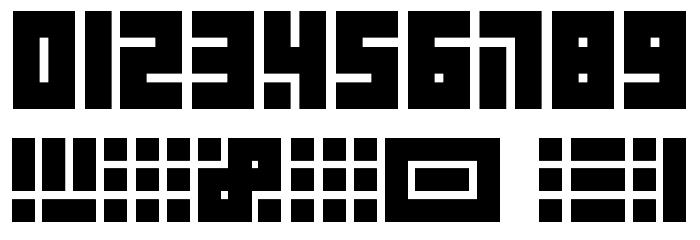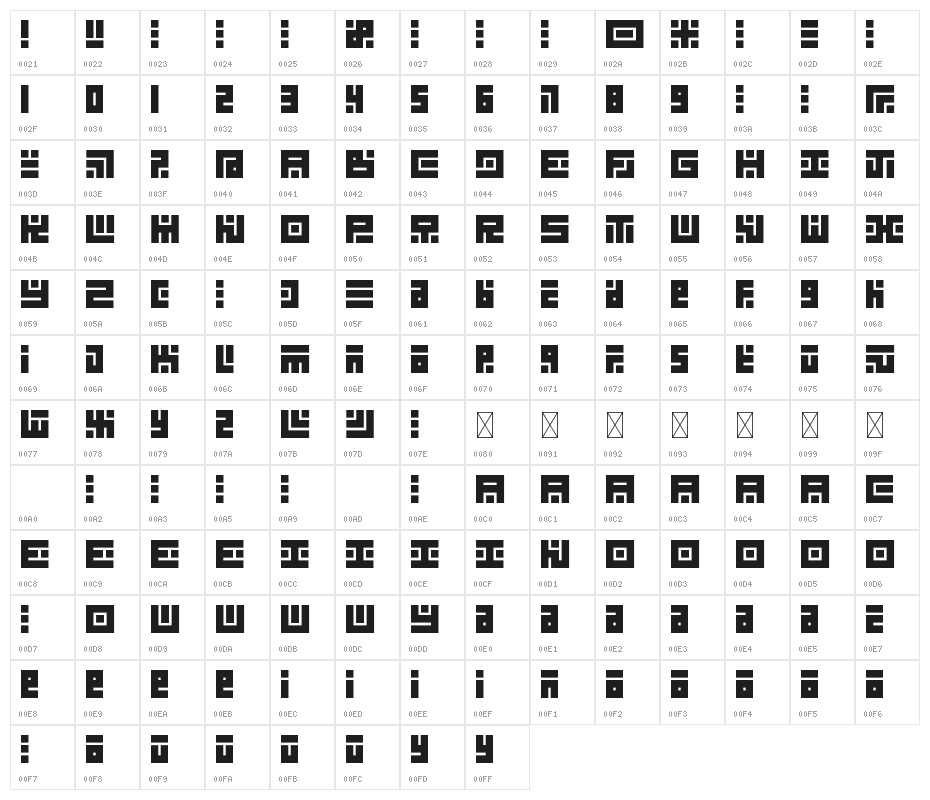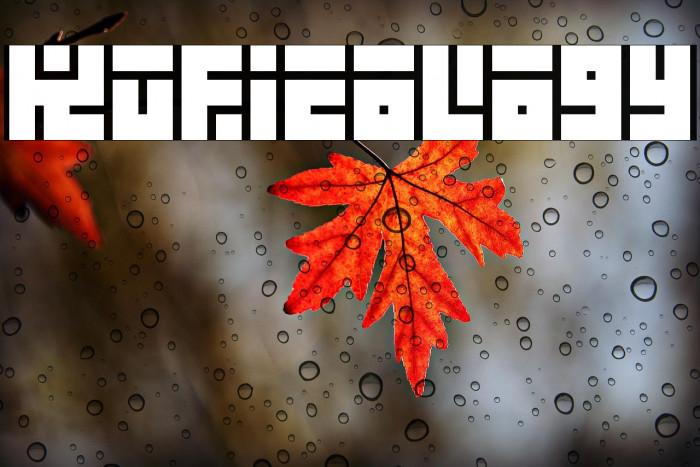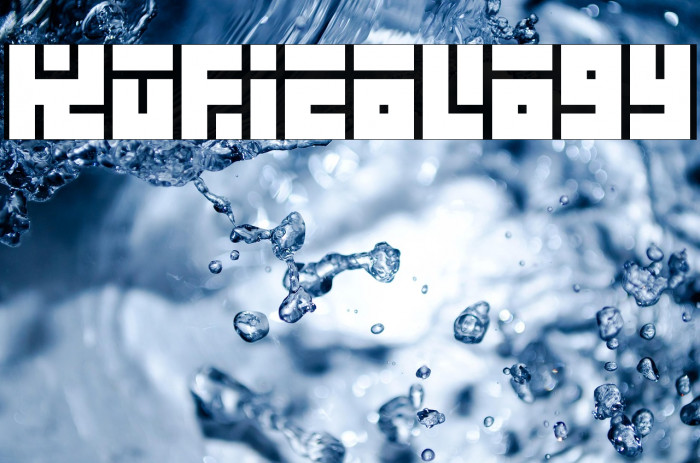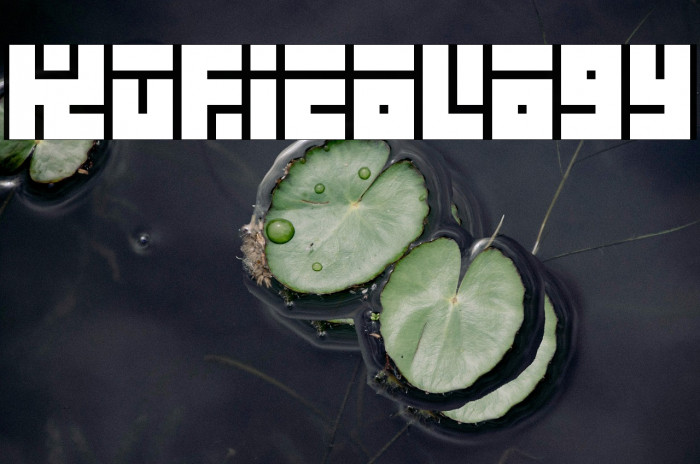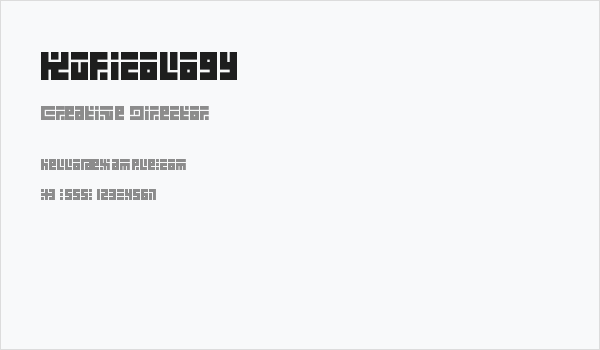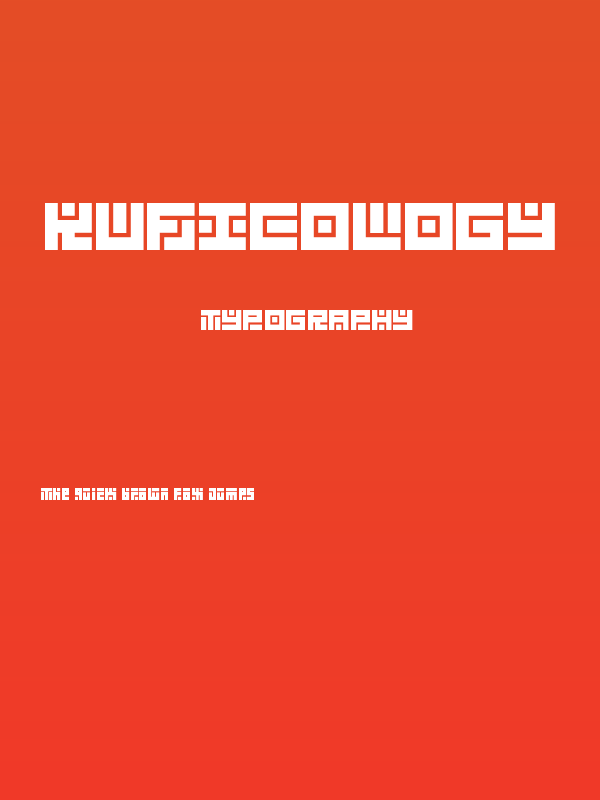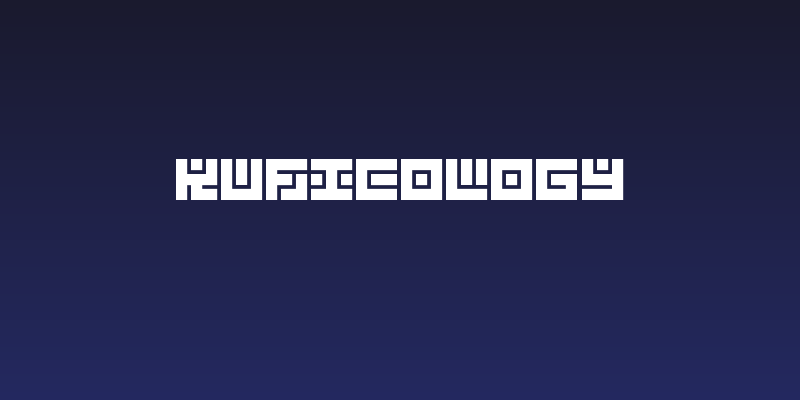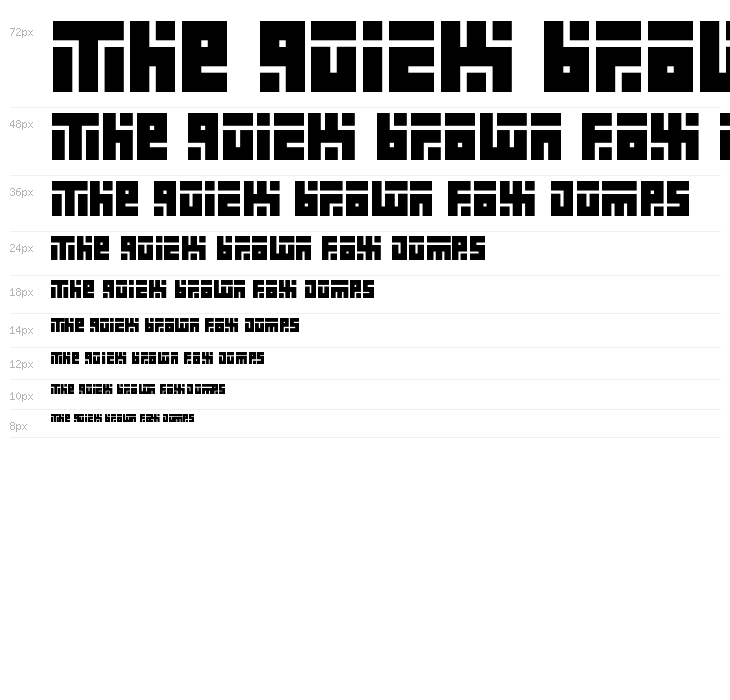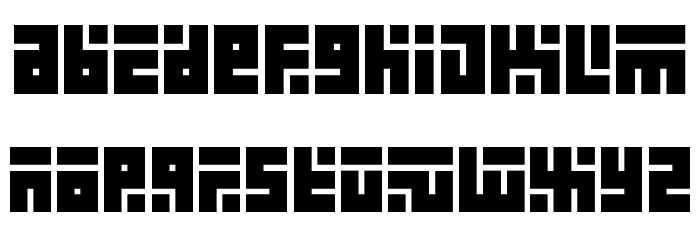
Kuficology Font
Kuficology Description
This font features a bold, geometric design with a distinctly modern and decorative style. Each character is constructed using a series of thick, block-like shapes that create a sense of uniformity and strength. The uppercase and lowercase letters maintain a consistent height, contributing to a monospaced appearance. The numbers and special characters follow the same design principles, ensuring a cohesive look across all glyphs. The font's unique style is reminiscent of ancient script forms, yet it maintains a contemporary edge, making it suitable for a variety of creative applications.